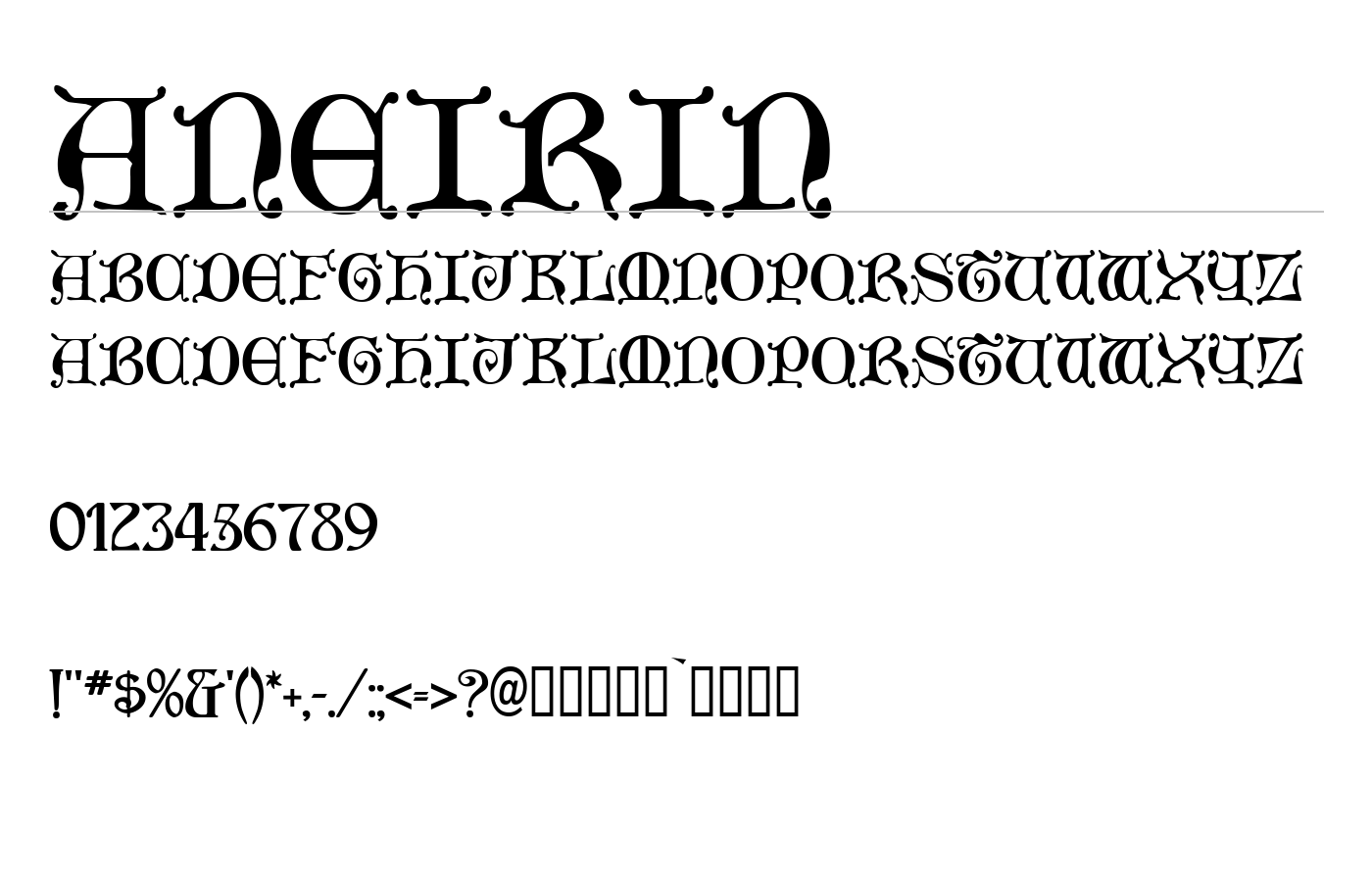
Aneirin is a unique serif font with a decorative, medieval-inspired style featuring high contrast and intricate, curvy serifs that give each letter a whimsical yet elegant flair. Its bold, artistic letterforms make it ideal for eye-catching headlines, logos, or branding that seeks a historic or fantasy vibe, adding character and charm wherever used. This font works best in display contexts where its distinctive personality can shine without sacrificing readability.
Aneirin Font
About Aneirin Font